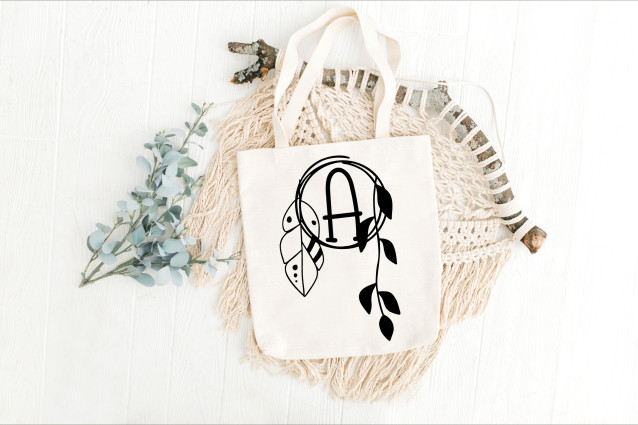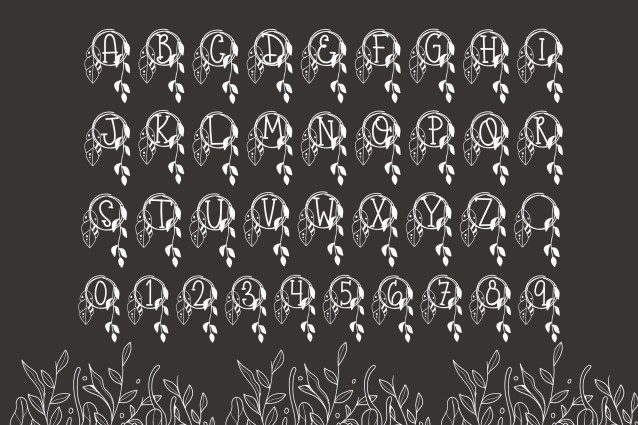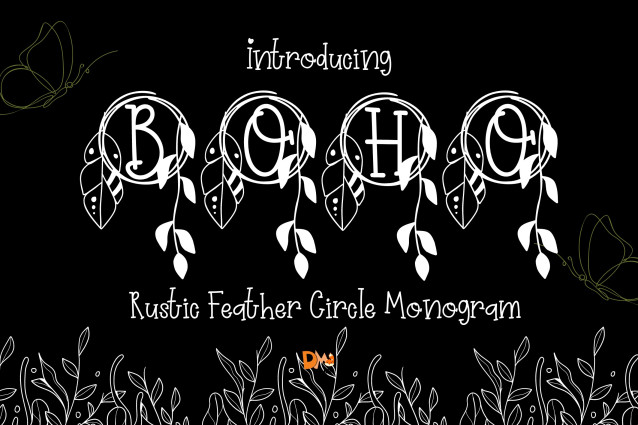
Rustic Feather Circle Monogram Font
Rustic Feather Circle Monogram Font is a charming serif monogram font where each uppercase letter is encased in a hand-drawn feather wreath. With a rustic, bohemian feel and earthy elegance, this typeface is perfect for wedding stationery, Cricut projects, personalized gifts, and boutique branding that needs a grounded, natural touch.